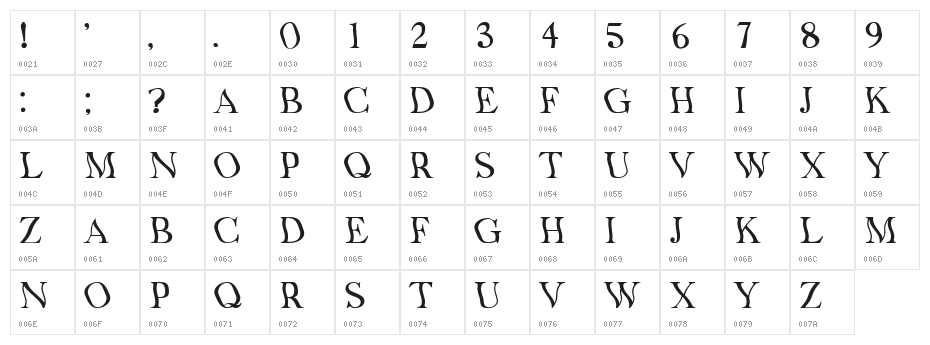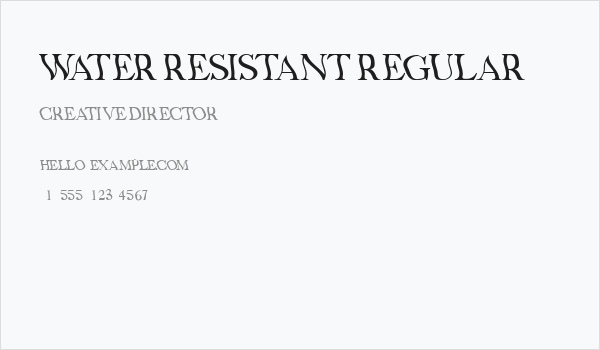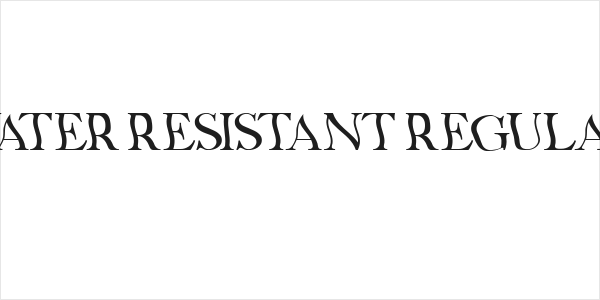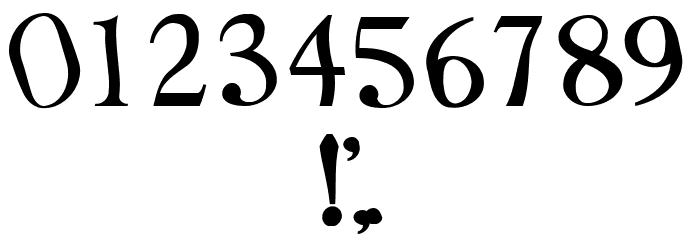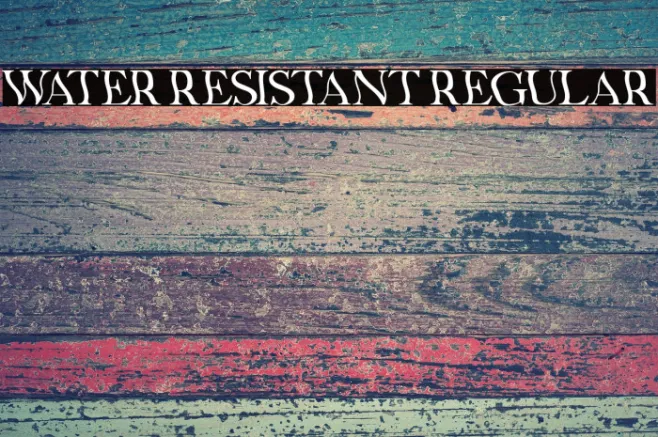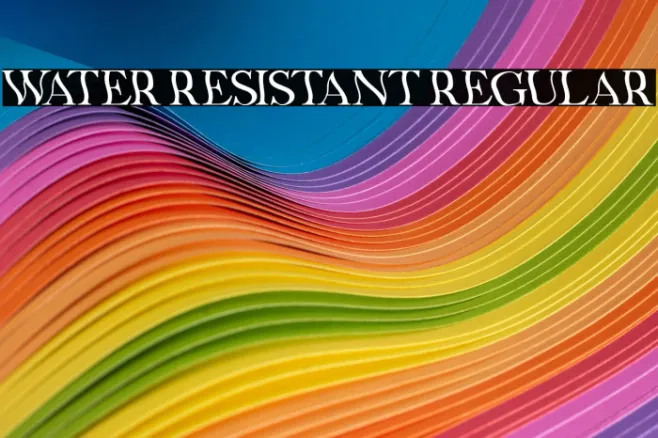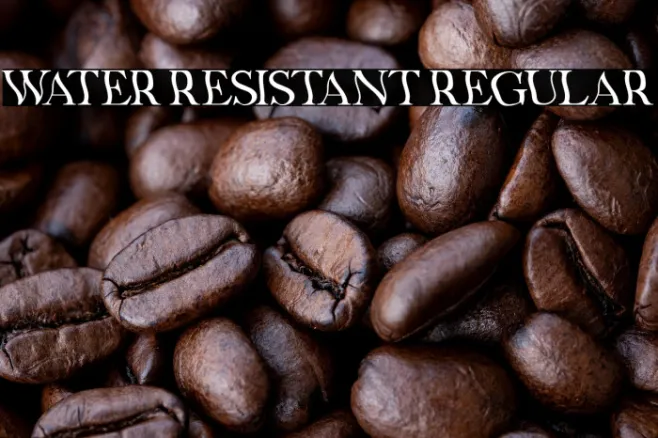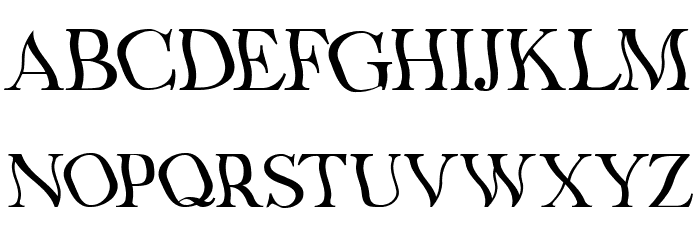
Water Resistant Regular Font
Water Resistant Regular Description
This font features a distinctive and artistic design with sharp, angular serifs and a slightly condensed form. The uppercase letters exhibit a bold and dramatic flair, with exaggerated curves and pointed edges that give it a unique, almost calligraphic appearance. The lowercase letters maintain this style, offering a consistent look across the typeface. The numerals are equally stylized, with a blend of curves and angles that make them stand out. Special characters like the exclamation mark and question mark are designed with the same attention to detail, ensuring they complement the overall aesthetic. This font is ideal for projects that require a touch of elegance and drama, making it suitable for headlines, logos, and decorative purposes.
| Use Case | Headlines, Logos, Decorative |
| Proposed Projects | Ideal for use in branding, editorial design, posters, and any project that requires a striking and elegant typeface. |